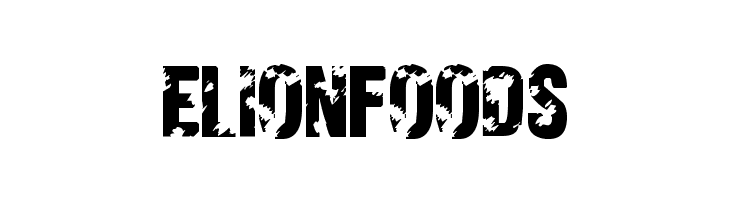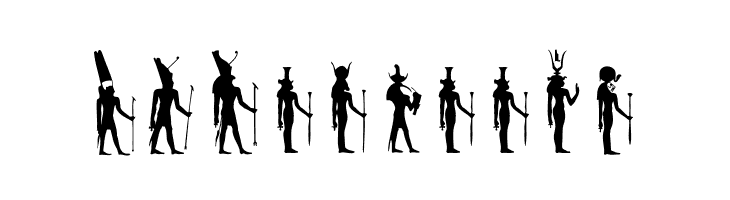
A playful, hand-drawn font with a whimsical and dynamic style.
A decorative font featuring stylized silhouettes of ancient Egyptian figures.
A bold, distressed font with a grunge aesthetic and textured appearance.
A modern, clean typeface with uniform strokes and a slightly condensed structure.
A classic serif typeface with medium weight and balanced readability.
A medium-weight, italic serif font with elegant curves and classic style.
Expressive handwritten script font.